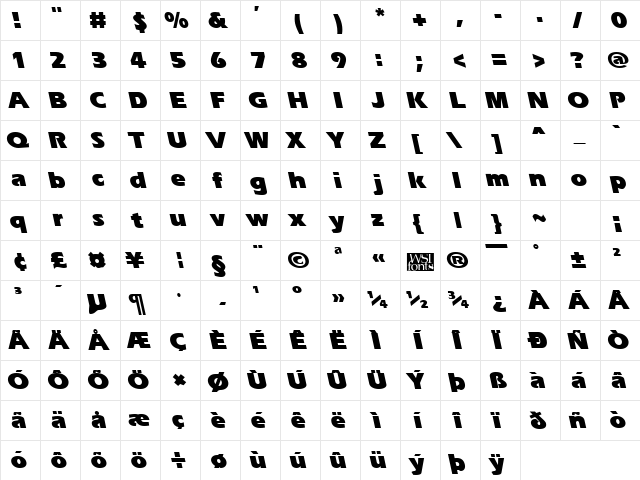
ErgoeBlackBS Regular
Design Context for ErgoeBlackBS Typeface
ErgoeBlackBS is a composed and adaptable typeface that performs quietly and consistently across a wide range of design contexts.